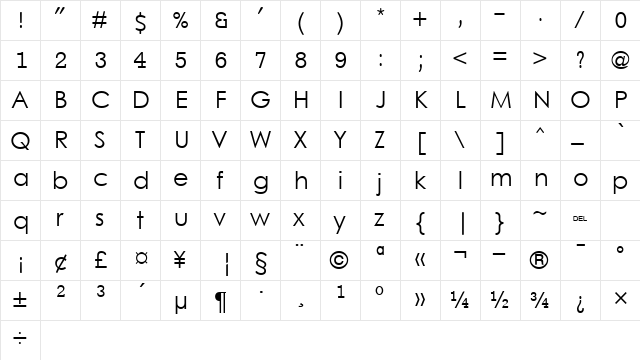
Levenim MT Regular
Design Context for Levenim MT Typeface
Levenim MT takes a measured approach to typography — its balanced proportions and neutral character make it a reliable workhorse for both digital and print work.